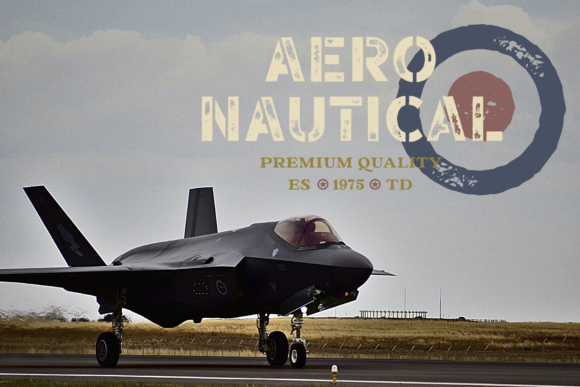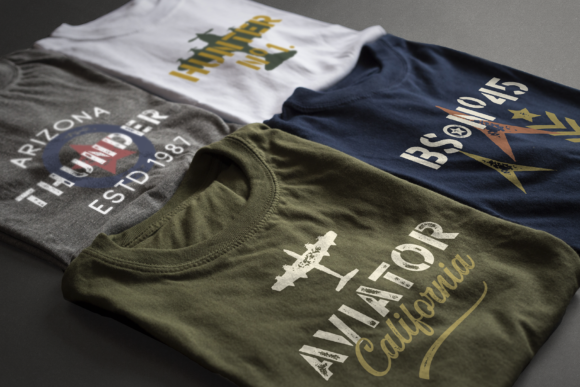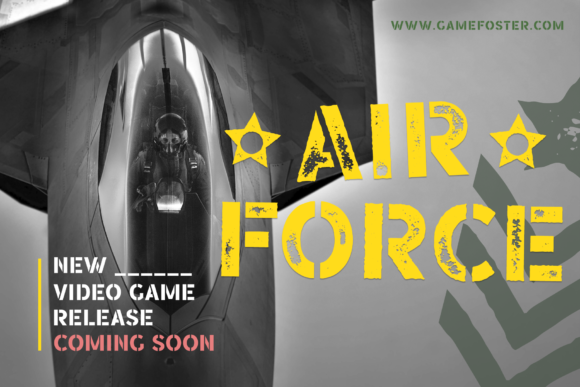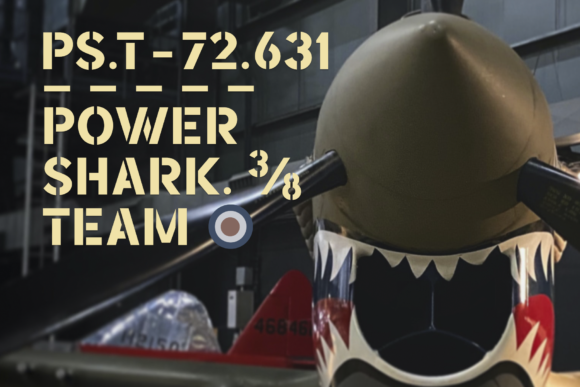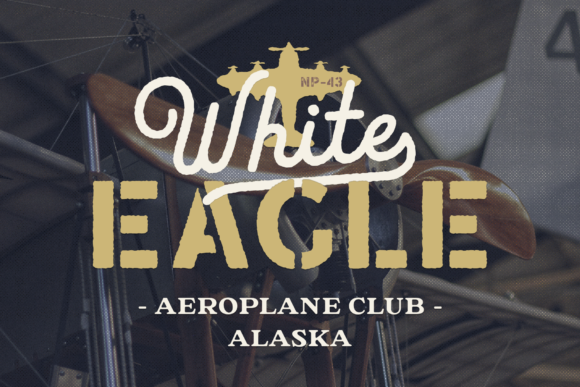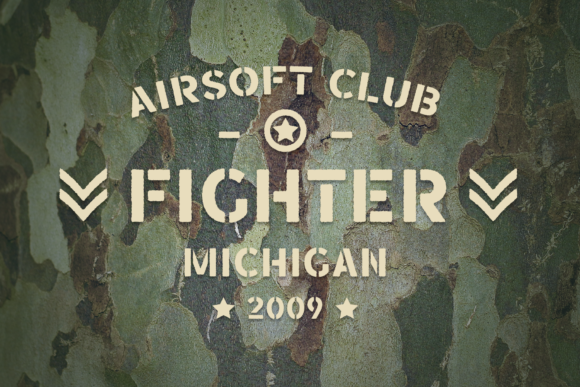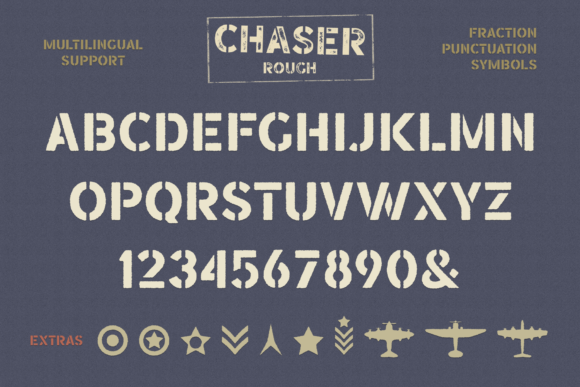
Chaser Font
Chaser is a bold and unique display font inspired by military style aviation. This font will look excellent on projects in the military style, in both modern and vintage versions.